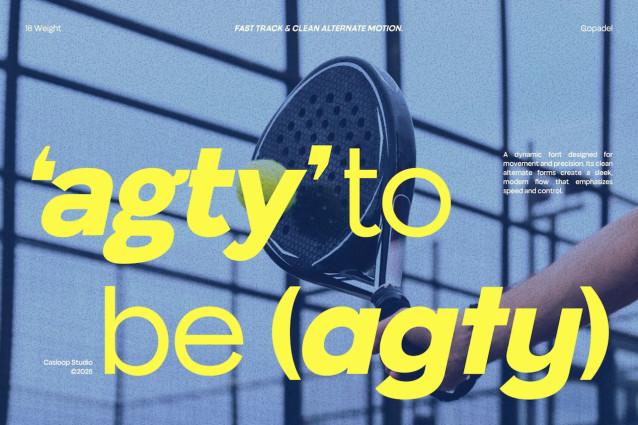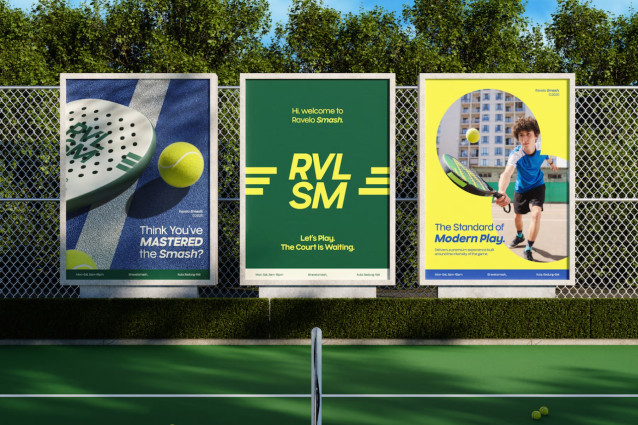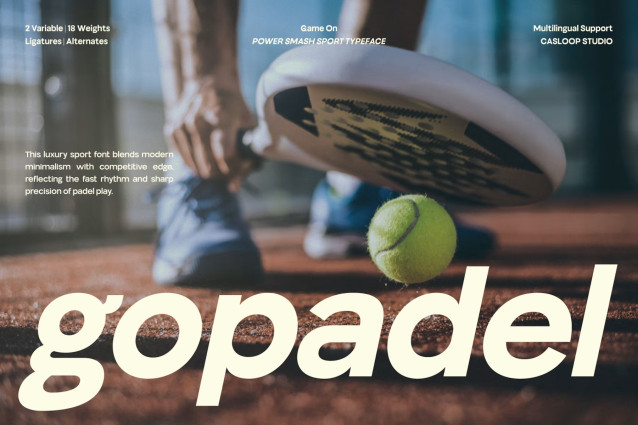
Gopadel is a power-driven luxury sport typeface that merges disciplined structure with refined elegance, inspired by the intensity and prestige of modern athletic culture. Designed with a strong focus on key characters A, G, R, Q, S, and W, it features firm construction, balanced proportions, and precisely controlled curves that project stability, authority, and quiet confidence without excess.
With its extensive 18-weight system, Gopadel delivers exceptional versatility for logos, headlines, branding systems, and modern identity design that demand a timeless, old- money sport aesthetic grounded in performance and sophistication.